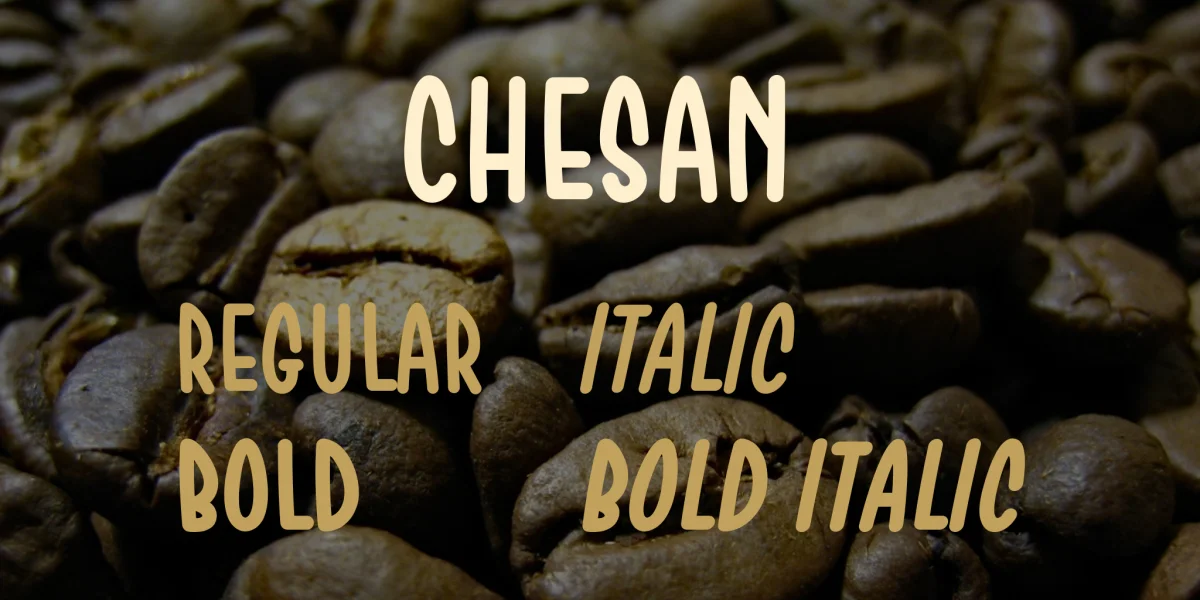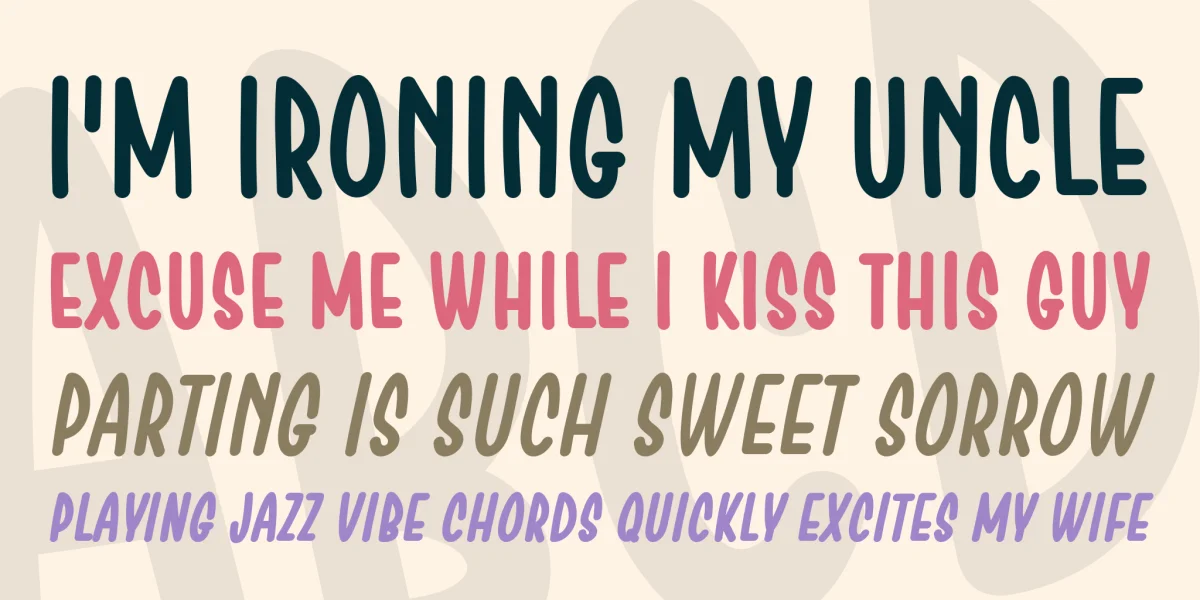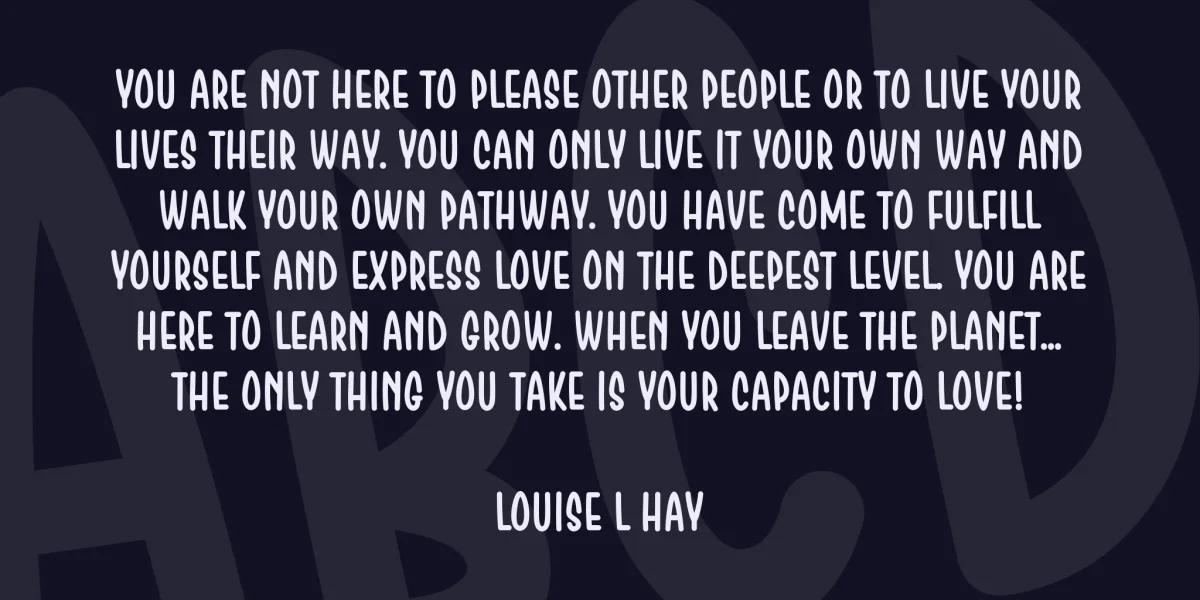
Chesan is a playful handwritten font that has a cartoonesque feeling to it, designed by Situjuh Nazara.
It’s a fun type, but don’t let that fool you! It bold lines makes it very legible which makes it suitable for many different projects.
Chesan comes in 4 variations: regular, italic, bold & bold italic.